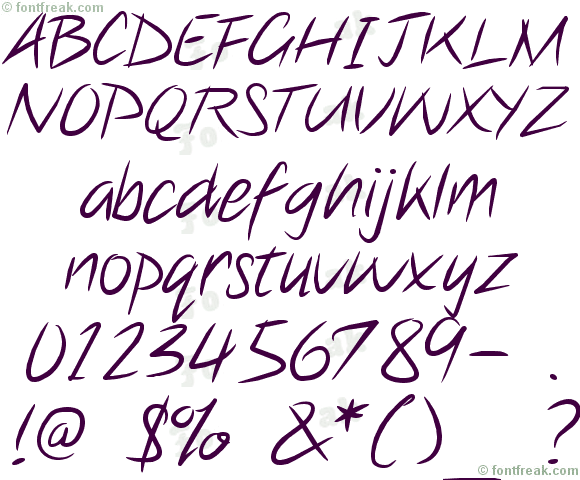
Note this
About Note This
Note This is a charming handwritten font crafted by West Wind Fonts, offering a unique blend of personal touch and legibility. This freeware typeface exhibits a casual, friendly style that captures the essence of spontaneous notes and messages. The strokes are moderately thick with a consistent weight, providing a sense of warmth and approachability while ensuring readability across various sizes. The letters feature slight irregularities that add to the handwritten appeal, making each character appear as if it has been penned with care rather than typed. The spacing is well-balanced, allowing for easy reading without compromising the font's artistic flair.
This versatile font is perfect for a range of creative applications. It shines in the realm of wedding invitations, where its informal yet elegant style can convey a sense of intimacy and personal connection. Additionally, Note This is an excellent choice for creating eye-catching restaurant menus, providing a friendly ambiance that can enhance the dining experience. Graphic designers can utilize this font in crafting engaging social media posts or marketing materials that require a personal touch. Furthermore, Note This can be effectively used in greeting cards and promotional flyers, making it a go-to choice for small business owners looking to stand out.
The target audience for Note This includes graphic designers, content creators, and small business owners who appreciate the balance between professionalism and warmth in typography. This font's distinctive character and approachability make it a standout choice for anyone looking to add a personal touch to their designs. With its unique charm and versatility, Note This font free download is an excellent addition to any designer's toolkit, ensuring that your projects resonate with authenticity and creativity.